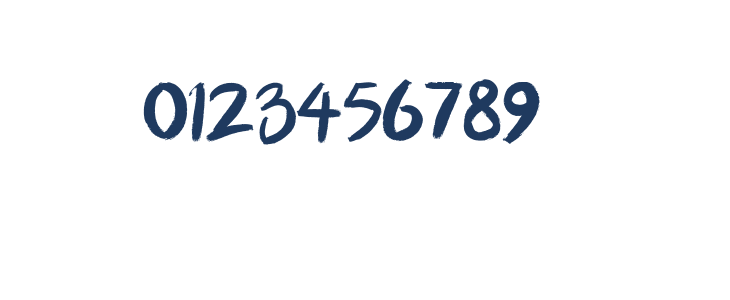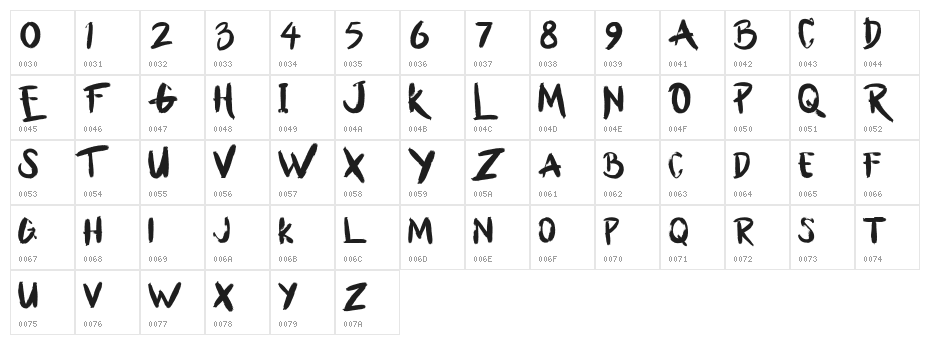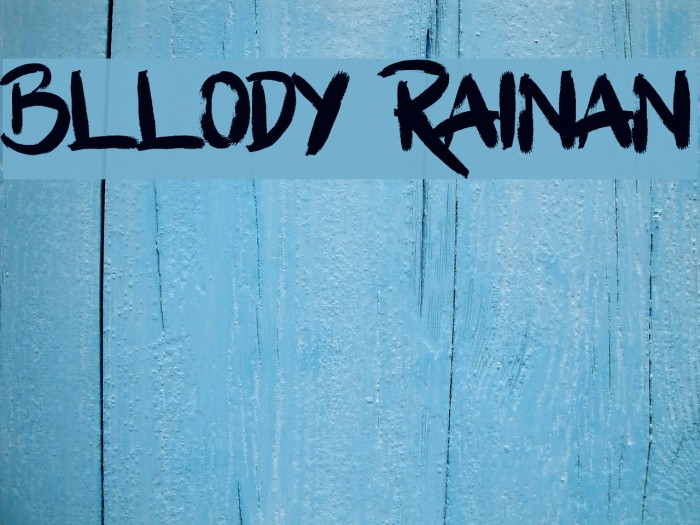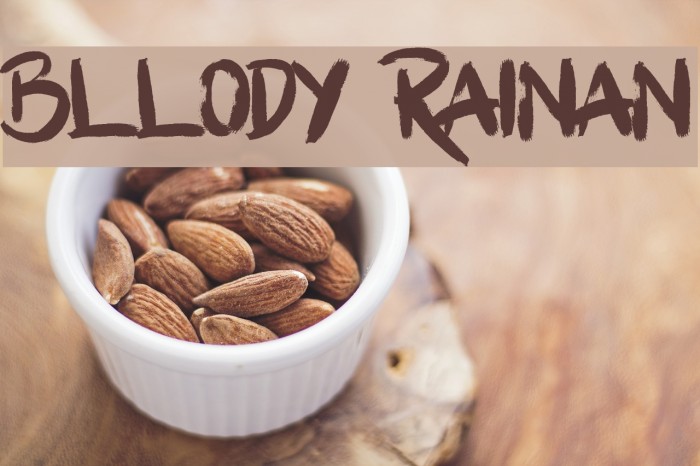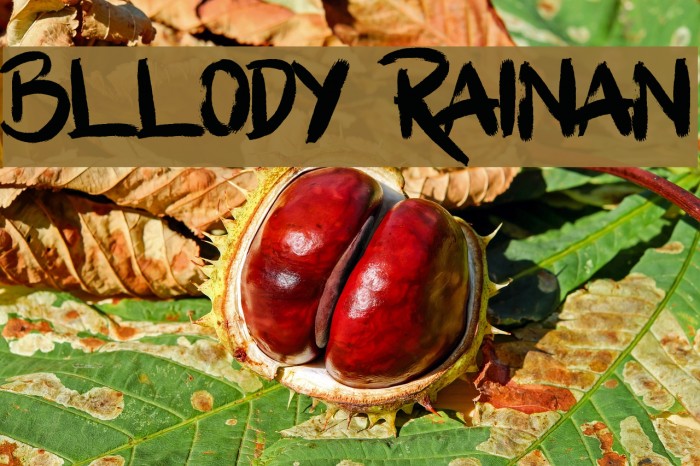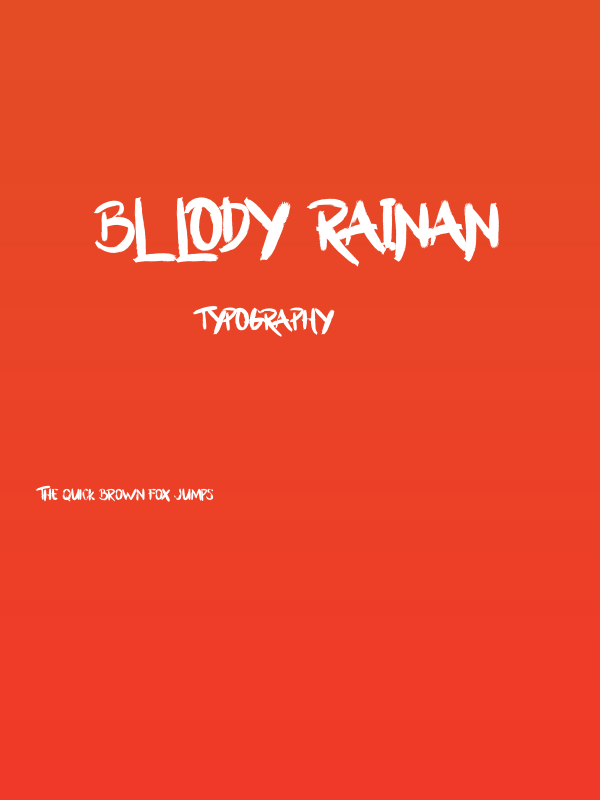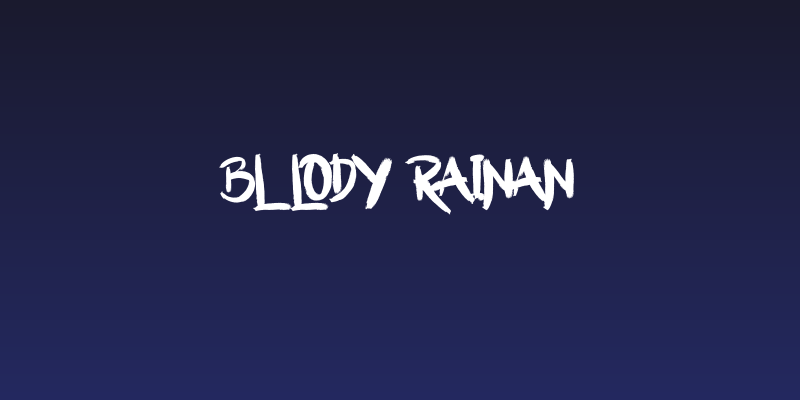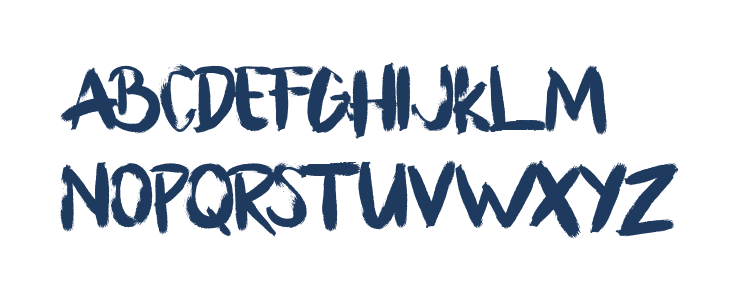
Bllody Rainan Font
Bllody Rainan Description
This font features a bold, expressive brush style that exudes energy and dynamism. The strokes are thick and uneven, giving it a hand-painted appearance that is both raw and artistic. Each letter has a unique flair, with varying angles and curves that create a sense of movement. The uppercase and lowercase letters maintain a consistent style, while the numbers and special characters integrate seamlessly with the overall design. This font is perfect for projects that require a bold statement and a touch of creativity.
| Proposed Projects | Ideal for posters, album covers, branding, and any creative projects needing a bold statement. |